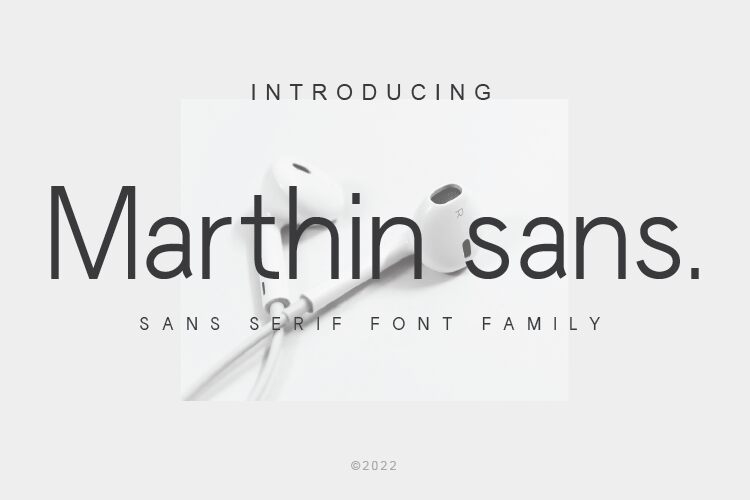
Marthin Sans
Marthin Sans, a creation by Rmdndsign, stands out as a sans serif font that embodies elegance and modernity. Its slender form offers a gentle yet distinct presence on the page, inviting readers into a world of clarity and sophistication. The crisp lines and unembellished curves suggest a minimalist beauty that speaks volumes without overwhelming the senses.
This font's delicate character lends itself to design applications where refinement is key—think luxury branding, high-end editorial work, or any setting where the subtlety of type can elevate the overall aesthetic experience. Marthin Sans promises to infuse your project with an air of contemporary chic, making it an impeccable choice for designers aiming to impart a sense of lightness and grace.